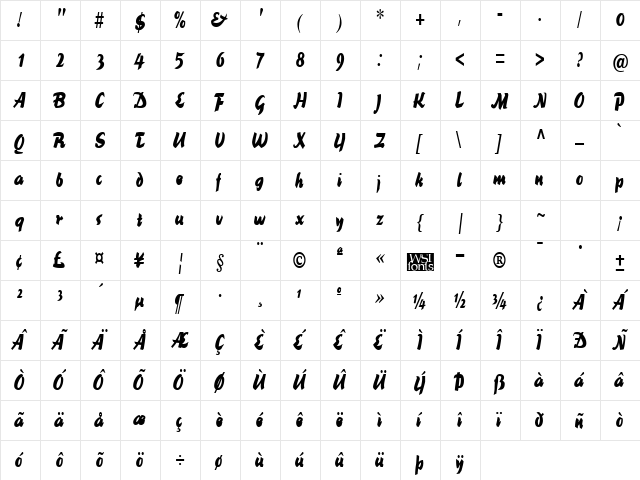
BrookscriptNarrow Regular Font Preview
BrookscriptNarrow Regular
Design Context for BrookscriptNarrow Typeface
BrookscriptNarrow brings a calligraphic fluidity to the page — its connecting strokes and expressive curves give it an unmistakably human quality.
Font Pairing: Combine BrookscriptNarrow with a simple geometric sans for maximum contrast — the tension between flowing curves and clean structure is a classic typographic pairing.
Pro Tip: Pair BrookscriptNarrow with a clean sans-serif for supporting text. The contrast between fluid script and geometric structure creates an elegant typographic hierarchy.